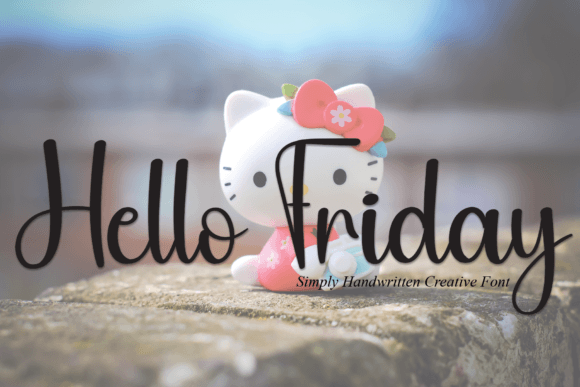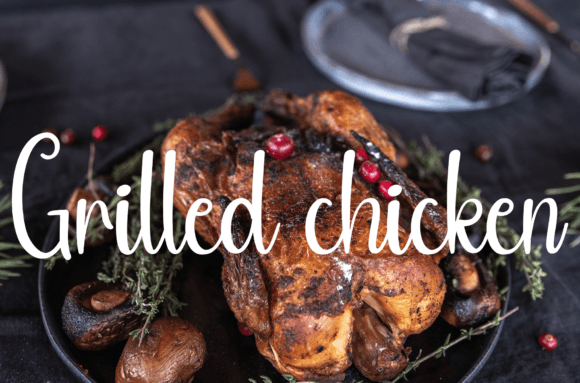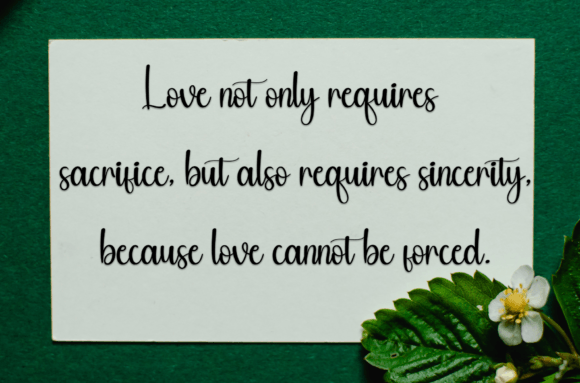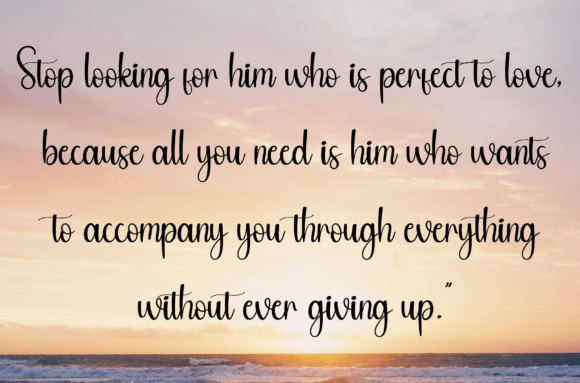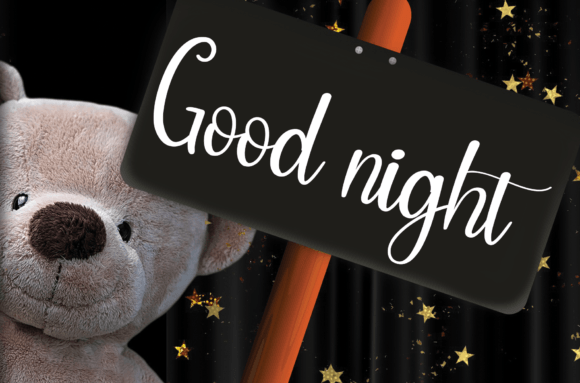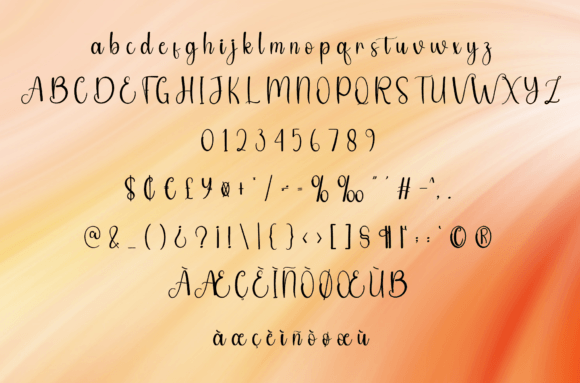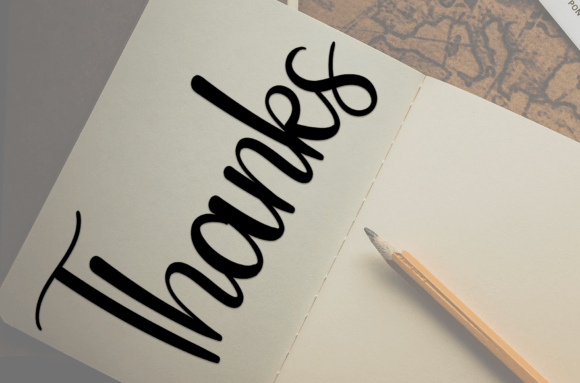
Hello Friday Font
What Is Hello Friday Font?
Hello Friday Font is a delightful handwritten script designed to bring a cheerful and playful feel to any creative project. Its smooth, rounded letters feel warm and approachable while staying clean and professional. This balance makes Hello Friday Font a fantastic choice for designs that need personality, joy, and a handcrafted touch.
The font combines modern simplicity with a fun, whimsical spirit that works beautifully in both print and digital designs.
Hello Friday Font is versatile and fits a wide variety of applications. For example, it looks beautiful on wedding invitations, save-the-date cards, and thank-you notes. The handwritten style creates a romantic, uplifting atmosphere that makes any event feel special.
Greeting cards for birthdays, anniversaries, and holidays also stand out with this font’s cute, friendly character. The smooth strokes make every message feel sincere and heartfelt.
If you design logos, Hello Friday Font can help your brand look approachable and memorable. Boutiques, artisan shops, bakeries, and creative businesses often use handwritten fonts to highlight authenticity and warmth. Hello Friday Font helps your brand connect with customers on a personal level.
This font is also perfect for social media graphics. Whether you’re designing quotes, promotions, or event announcements, Hello Friday Font adds a cohesive and engaging look to your posts.
Additionally, it works beautifully on product packaging and labels. From handmade gifts to organic treats, the font gives your designs a cozy, handcrafted feel that customers will love.
Why Should You Choose Hello Friday Font?
One of the top reasons to choose Hello Friday Font is its readability. Despite its playful style, each letter remains clear and easy to read at any size. Whether you’re creating a small tag or a large banner, your text will always look polished and inviting.
Another advantage is how easily it pairs with other fonts. You can combine Hello Friday Font with clean serif or sans-serif typefaces to balance its decorative script. This pairing keeps your designs professional while adding warmth and personality.
Designers love that Hello Friday Font saves time while maintaining quality. Every character is carefully crafted to look polished straight out of the box, so you can deliver beautiful results faster.
Hello Friday Font helps your work feel more authentic, lively, and engaging. The smooth, playful letters create an emotional connection with your audience, making your designs feel personal and thoughtful. This is especially important for projects that celebrate special occasions or share heartfelt messages.
The font’s friendly curves add movement and energy to your layouts. Even minimalist designs feel more dynamic when you use Hello Friday Font.
Choosing a high-quality handwritten script shows you value detail and creativity. Clients and customers will appreciate this effort, which helps build trust and strengthens your brand’s image.
Hello Friday Font is more than just a cute handwritten script—it’s a creative tool that helps you share your ideas with joy and charm. From wedding invitations to logos and social media graphics, this font adapts to many uses and always leaves a positive impression.